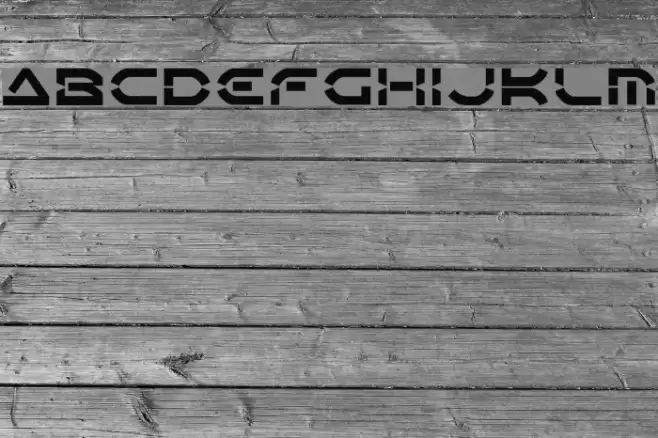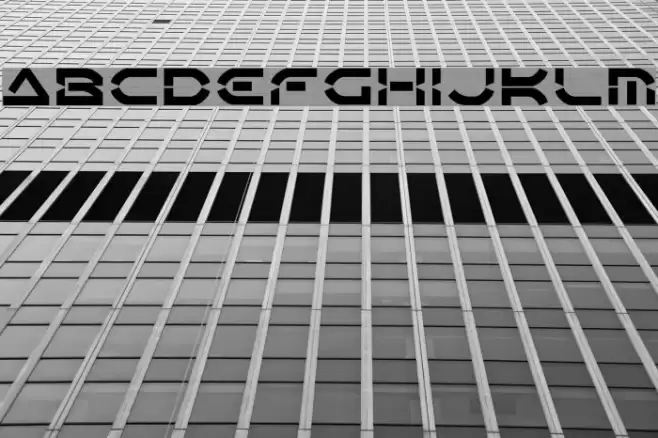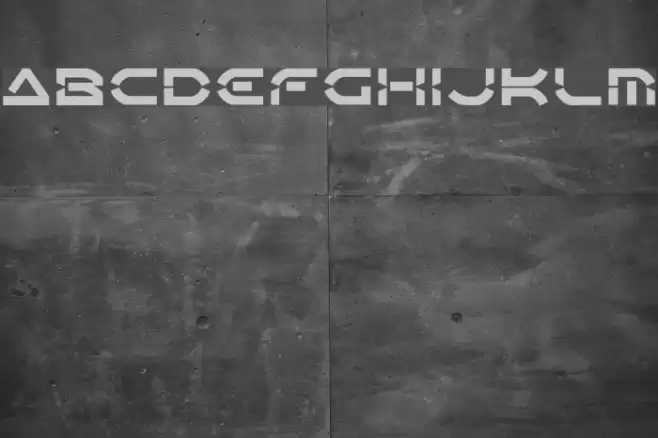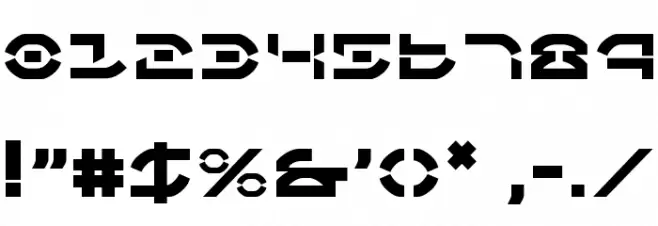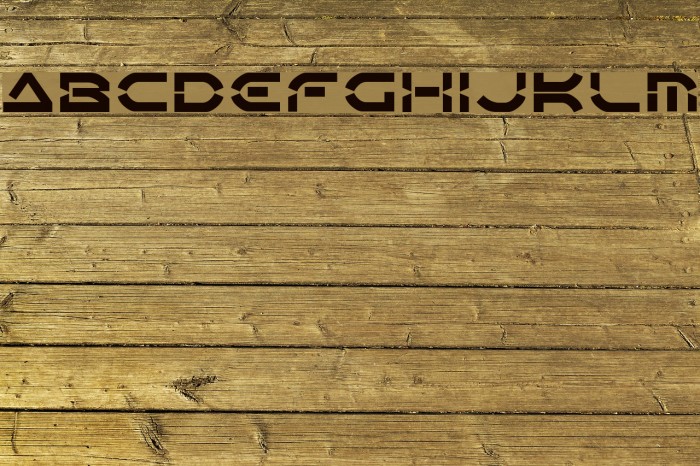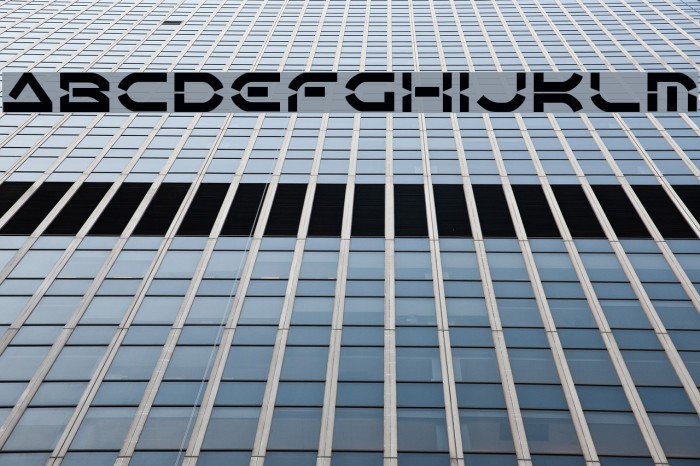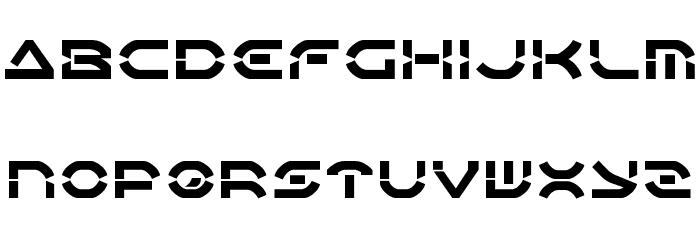
Oberon Deux Font
Oberon Deux Description
This font features a bold, geometric design with a futuristic flair. The characters are constructed with sharp angles and clean lines, creating a sense of modernity and innovation. The uppercase and lowercase letters maintain a consistent style, emphasizing symmetry and balance. The numerals and special characters are equally stylized, ensuring a cohesive look across all text elements. This font's unique appearance makes it stand out, ideal for projects that require a strong visual impact.
A bold, geometric font with a futuristic and innovative design from Capitals fonts.